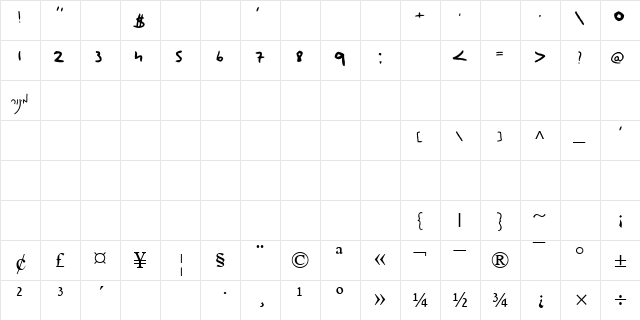
ANS minor Regular
Design Context for ANS minor Typeface
ANS minor is a composed and adaptable typeface that performs quietly and consistently across a wide range of design contexts.